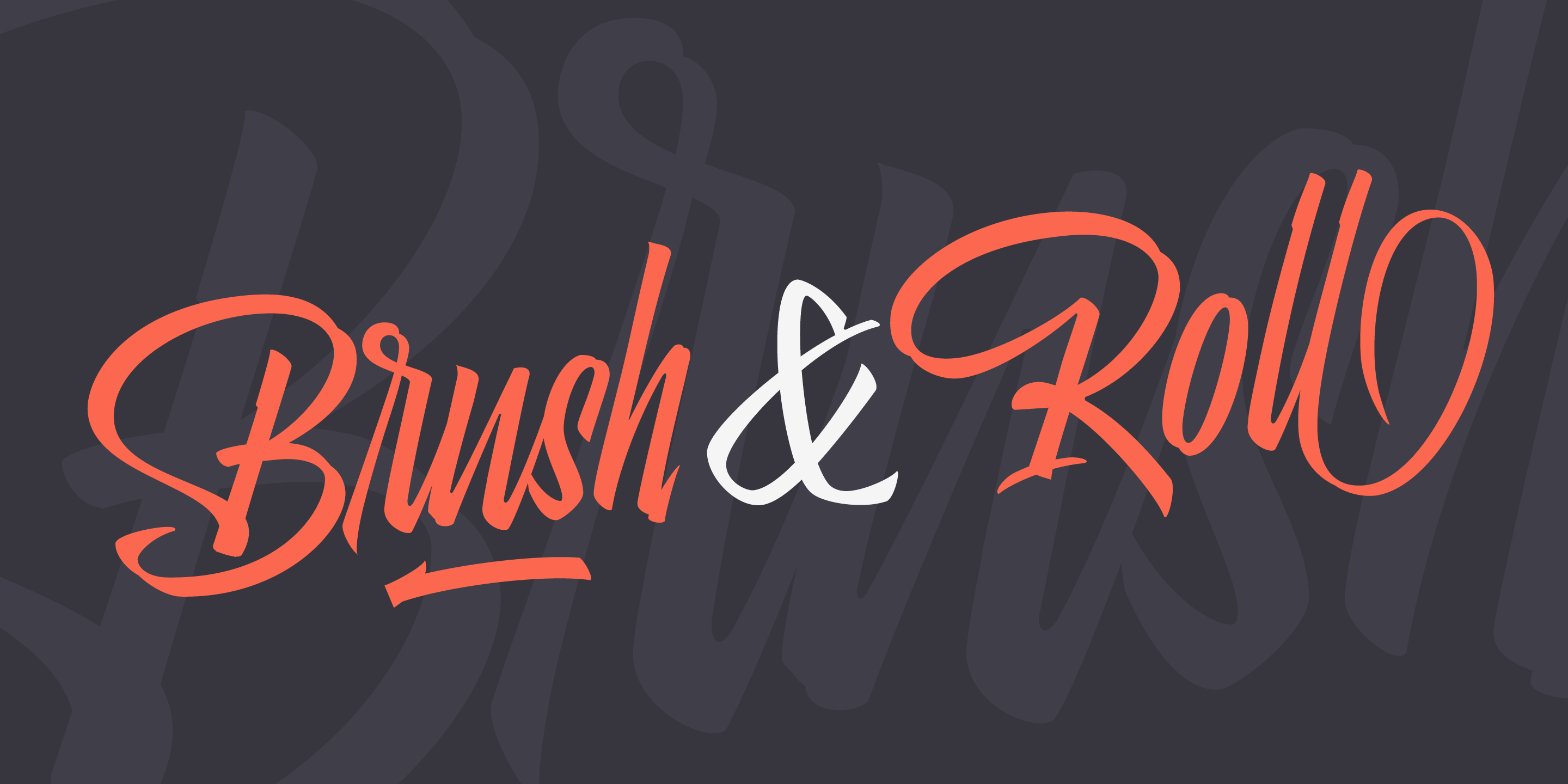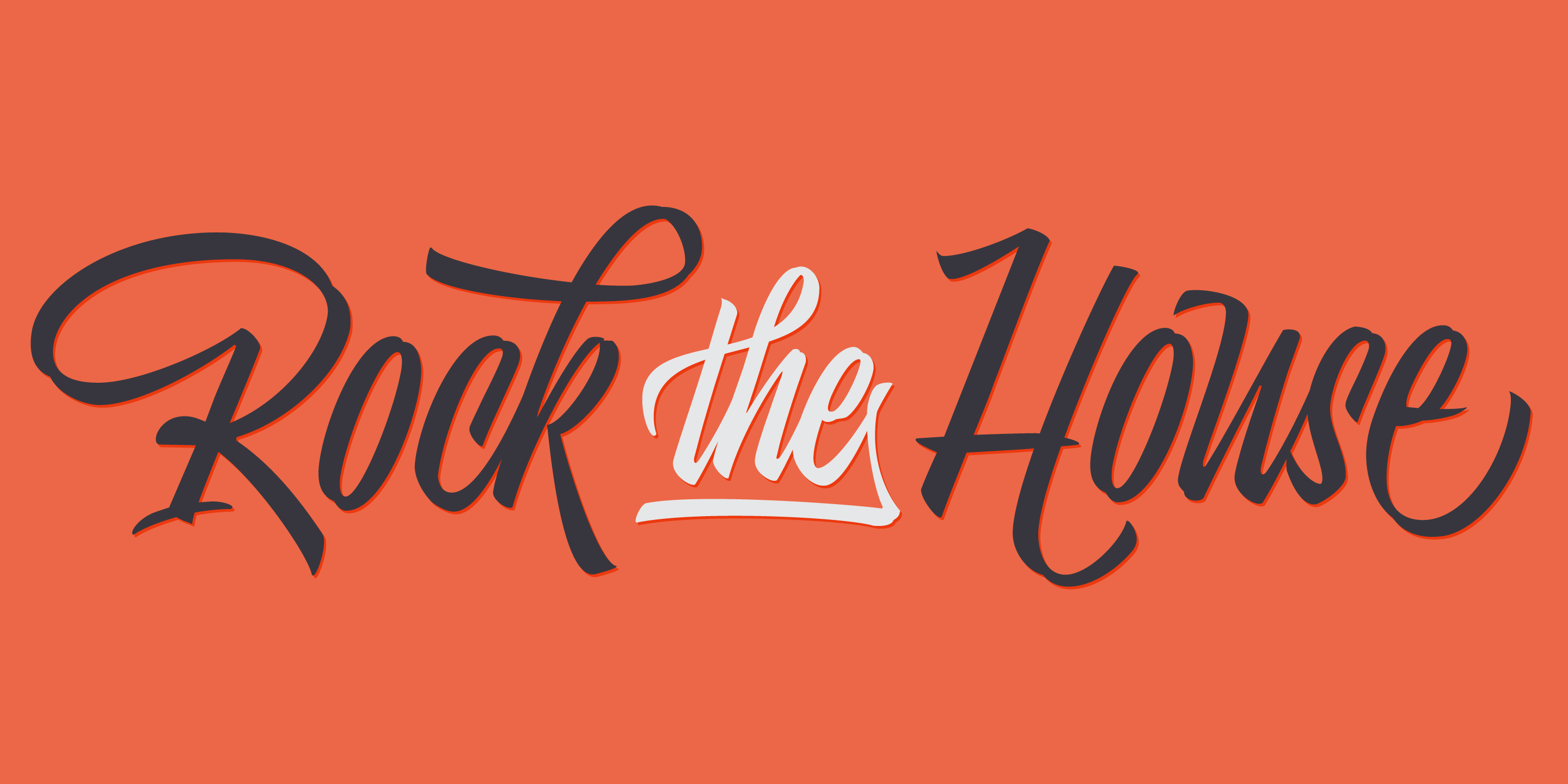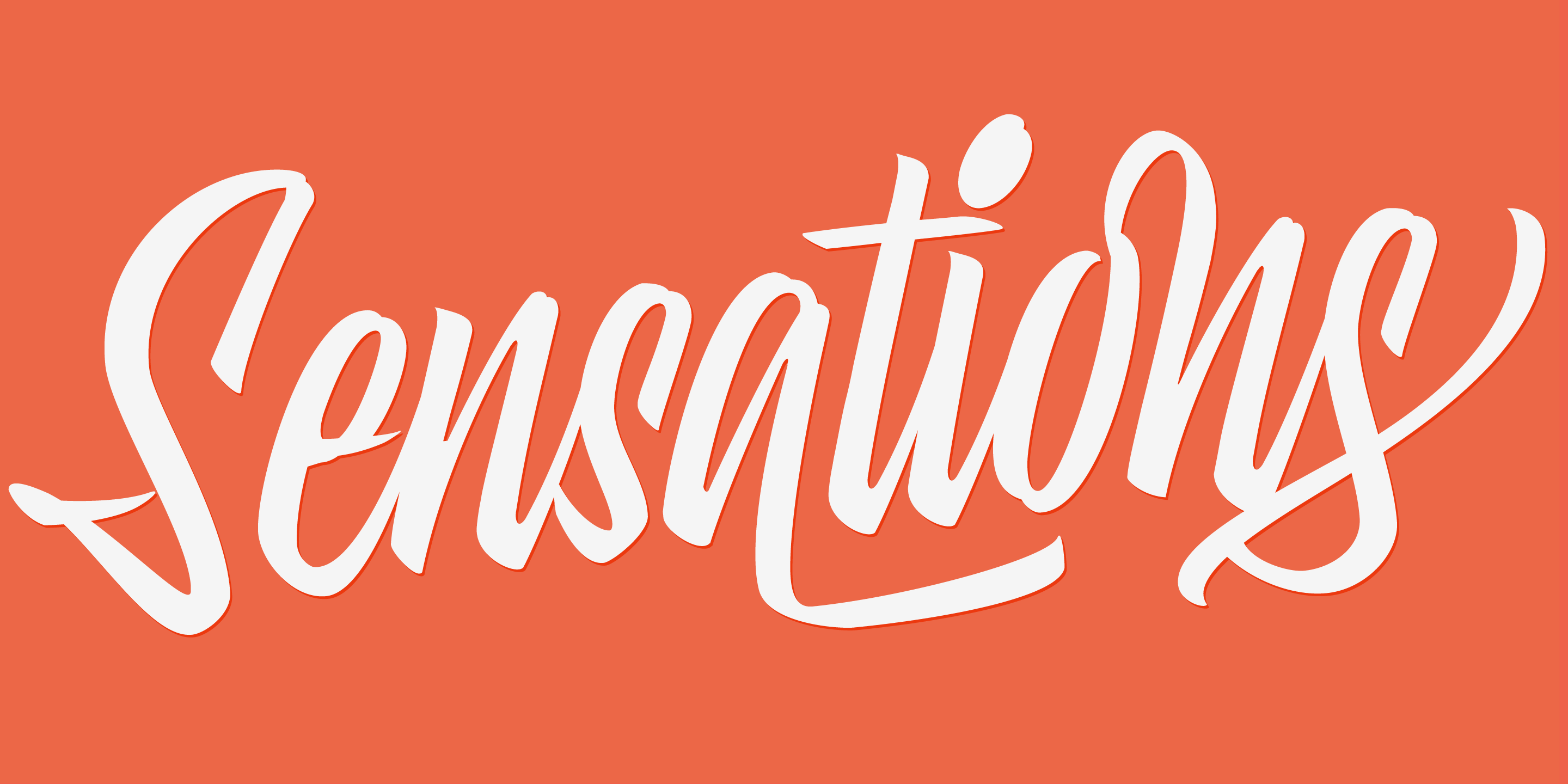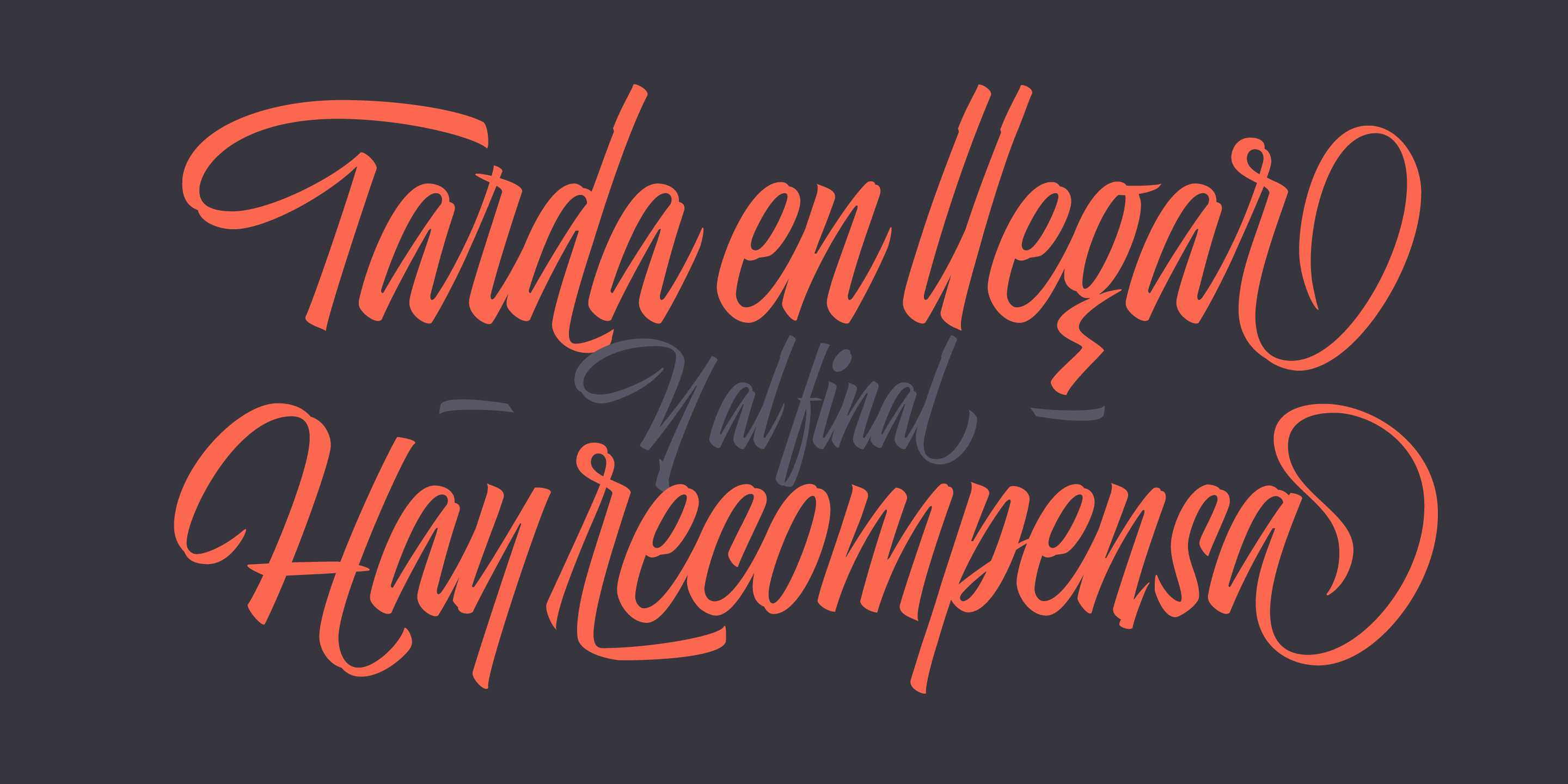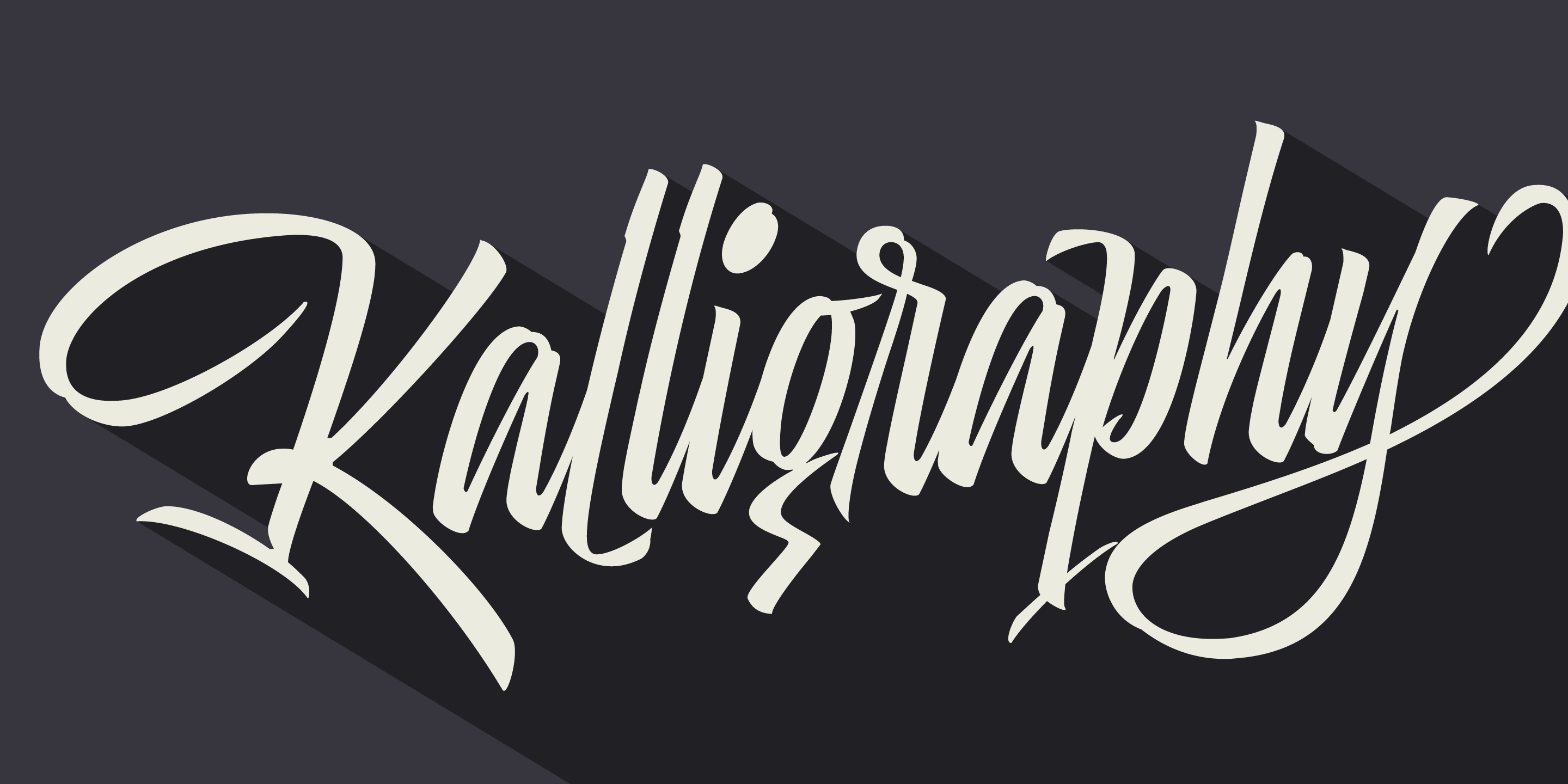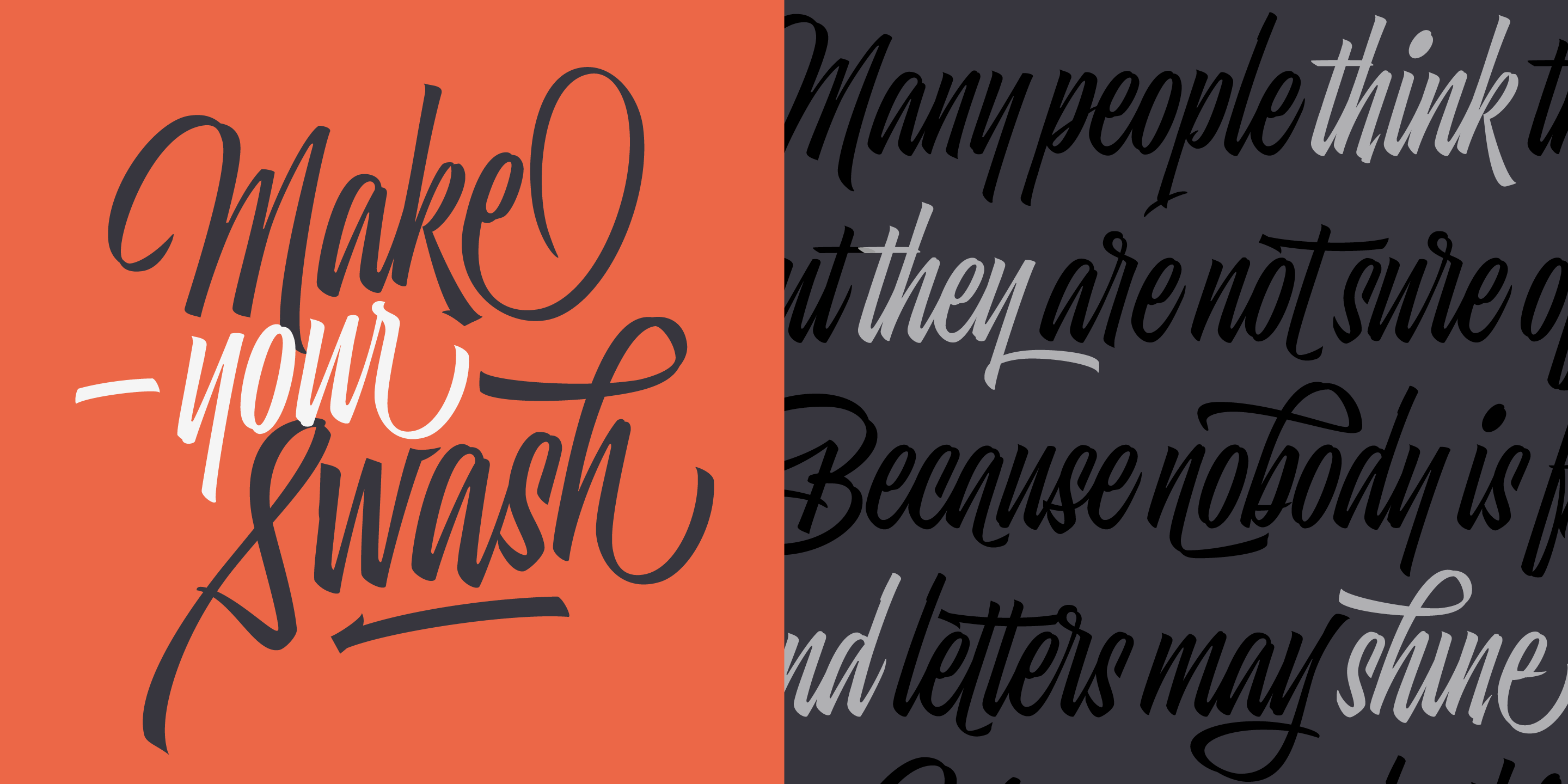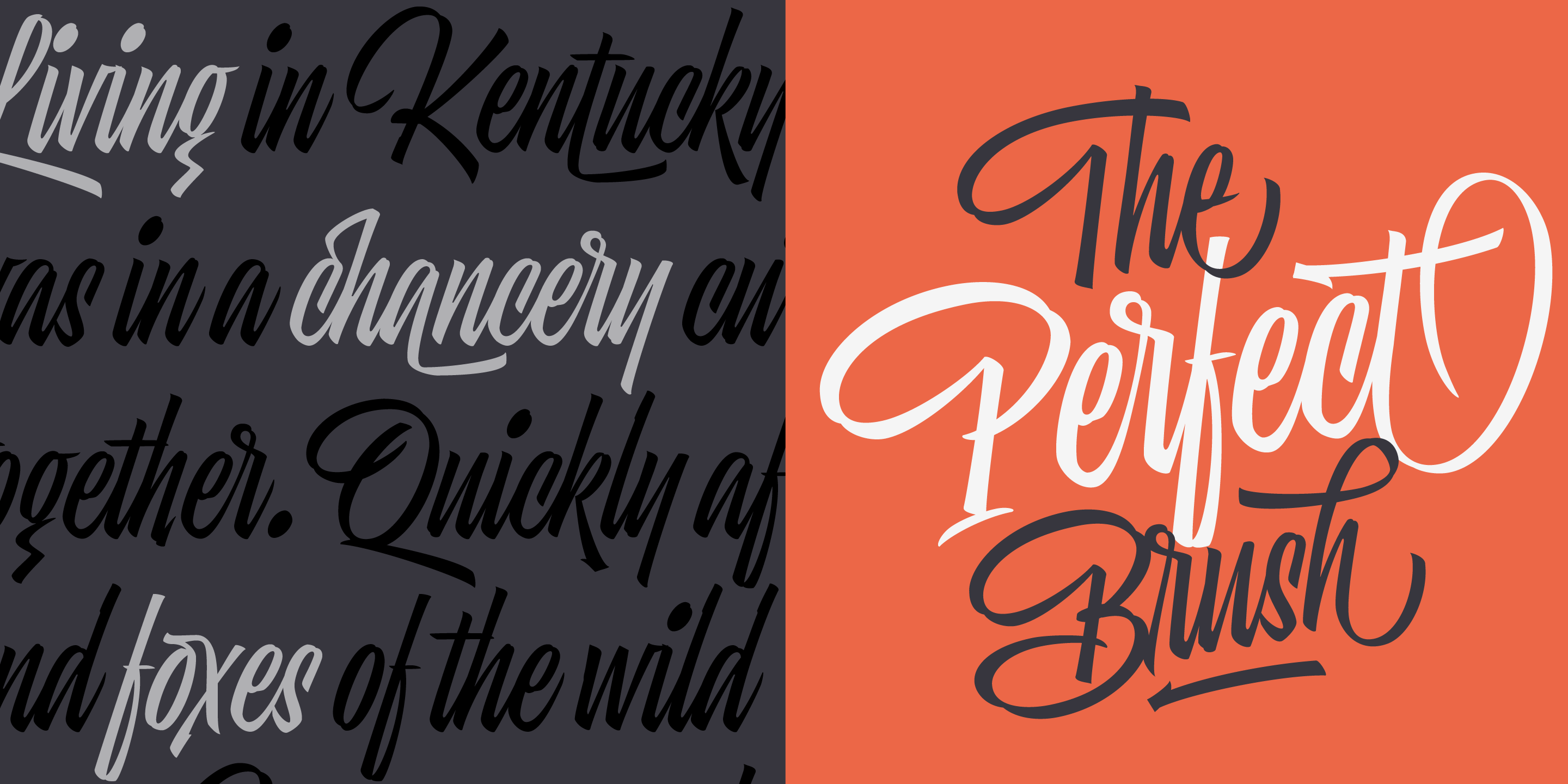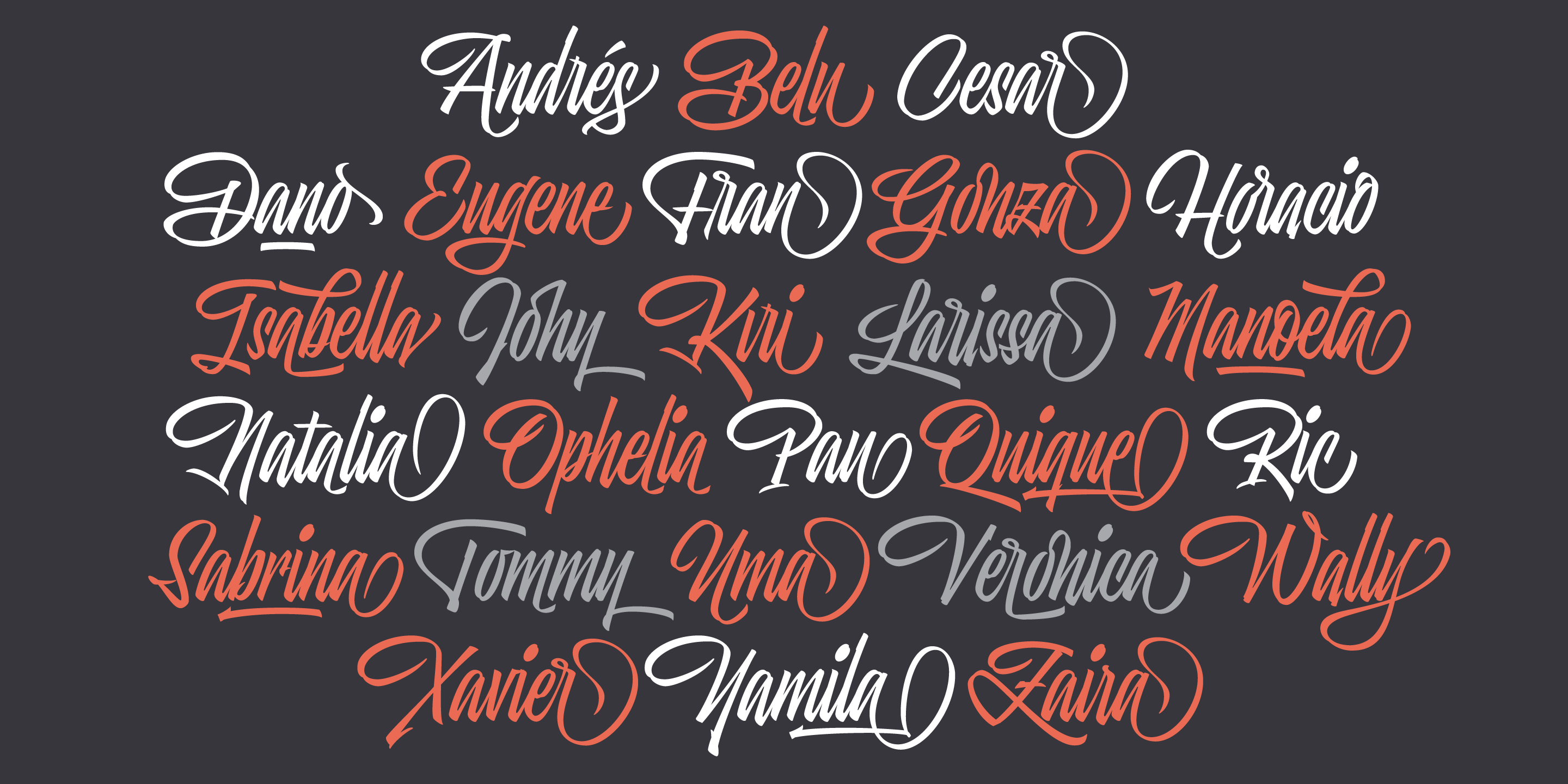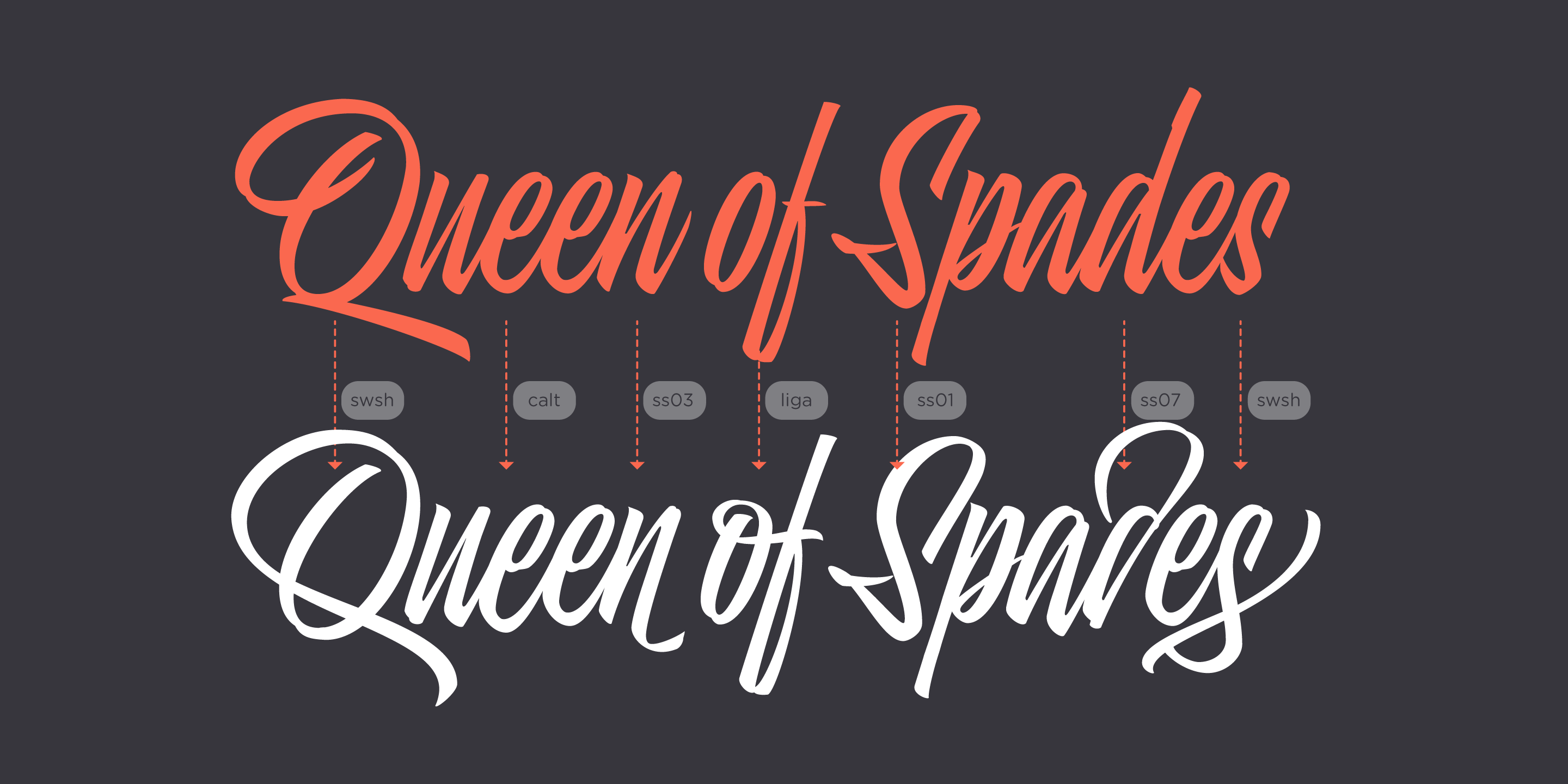
Skill font by Sproviero Type — the words “Brush & Roll” in a connected script, with “Brush” and “Roll” in orange and the ampersand in white, over a faint gray background pattern of brush strokes
Skill font by Sproviero Type — the words “Rock the House” in a connected script, with “Rock” and “House” in dark gray and “the” in white with an underline.
Skill font by Sproviero Type — the word “Sensations” in a connected, high-contrast script with a drop shadow
Skill font by Sproviero Type — the words “Tarda en llegar” and “Hay recompensa” in a bold, brush-style script, with “Y al final” in a smaller, lighter script between them.
Skill font by Sproviero Type — the word “Kalligraphy” in a connected script with long shadows
Skill font by Sproviero Type — the words “Make your Swash” in a connected script, and a paragraph of text in the same script with some words highlighted.
Skill font by Sproviero Type — a two-panel banner, with a dark gray left panel showing a paragraph of connected script text in black and light gray, and a right panel showing the words “The Perfect Brush” in connected script, with “The” and “Brush” in dark gray and “Perfect” in white.
Skill font by Sproviero Type — a grid of names in a connected script, alternating in white, coral, and gray, with some letters featuring long, sweeping descenders or ascenders
Skill font by Sproviero Type — the words “Queen of Spades” in a coral connected script, with a second line of the same words in white connected script below, showing alternate letterforms indicated by dashed lines and labels like “swsh” and “ss03.”
Skill is a script bursting with energy, rhythm, and raw expression. Equal parts precision and chaos, its sweeping curves and sharp angles channel the movement and velocity of the pointed brush, and ample alternates and ligatures give your design a custom look. Designed to feel fast, fearless, and free, it brings an edge to everything from posters and book covers to skate decks, album art, and tattoos. Skill captures the thrill of the brush with every stroke — restless, loud, and full of life.
OpenType Features
• Common Ligatures
• Discretionary Ligatures
• Ornaments
• Stylistic Alternates
• Stylistic Sets